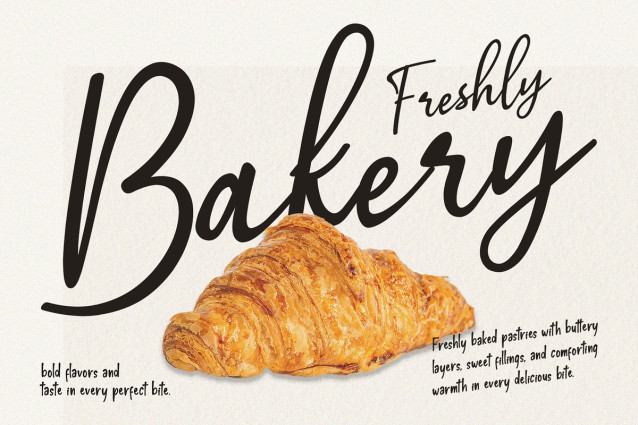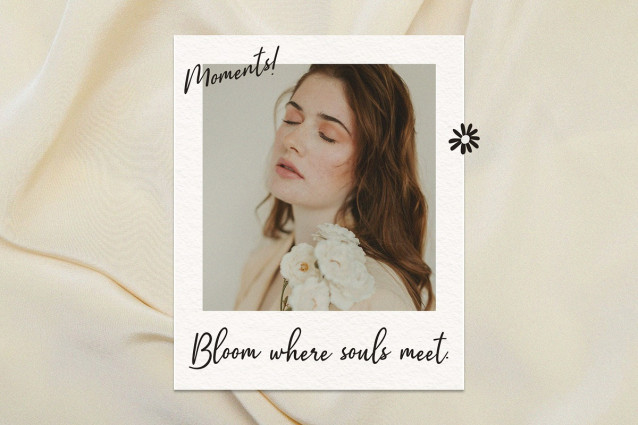
Mallika Script Typeface
Mallika Script Typeface a beautifully crafted handwritten script font that exudes elegance and personal charm. With its natural flow and authentic hand-drawn feel, Mallika is perfect for projects that require a touch of sophisticated artistry. The thick, smooth strokes and varying baseline give it a unique and modern aesthetic, making your typography stand out.